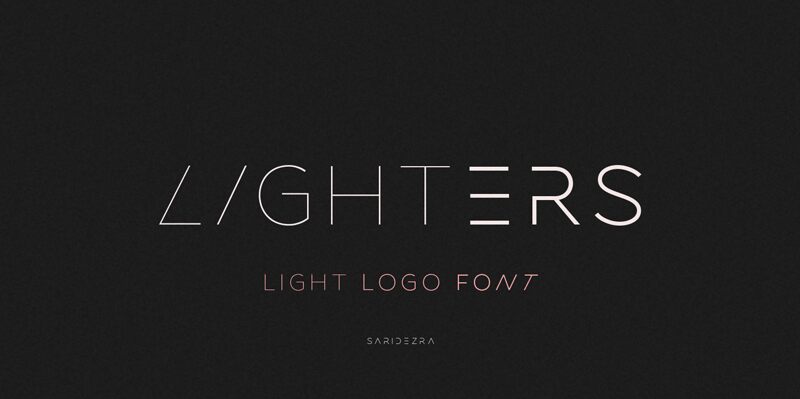
Lighters, a font crafted by the talented Saridezra, embodies a delicate balance of elegance and functionality with its light weight and semi-expanded width. The sleek lines and open forms convey an airy, contemporary feel that is both pleasing to the eye and remarkably versatile.
Ideal for designers seeking a touch of finesse without sacrificing readability, Lighters shines across various applications from sophisticated branding to clean web design. Its understated charm enhances the visual hierarchy while inviting audiences into a text with grace and clarity.